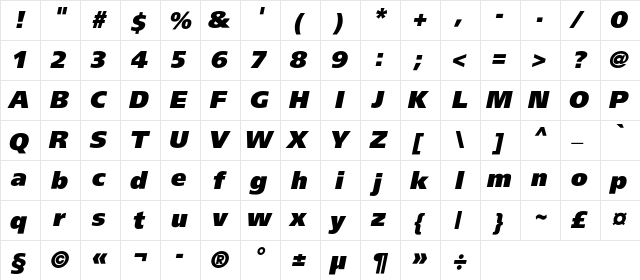
AGForeignerBlackC Italic
Design Context for AGForeignerBlackC Typeface
AGForeignerBlackC offers clean, dependable letterforms without strong stylistic allegiance, making it a practical choice for designers who need flexibility. The slanted form adds forward momentum and visual energy.
Pro Tip: Use AGForeignerBlackC for emphasis, pull quotes, and subheadings where its slanted energy can add rhythm to the layout.